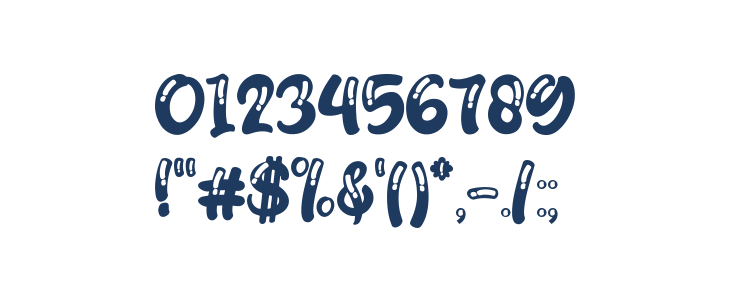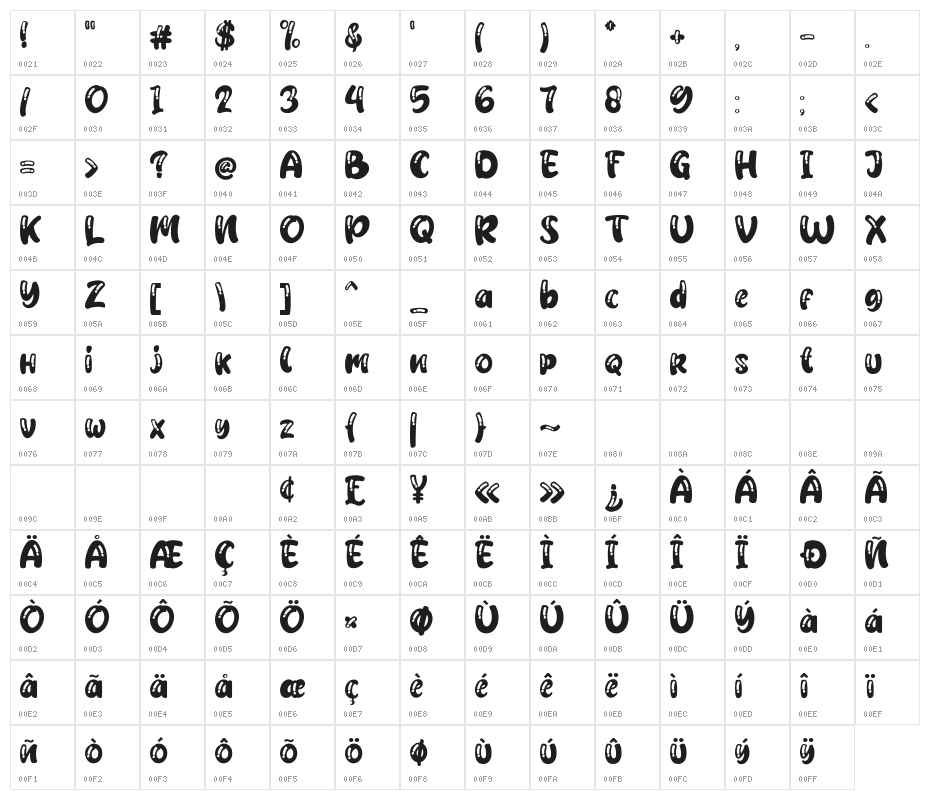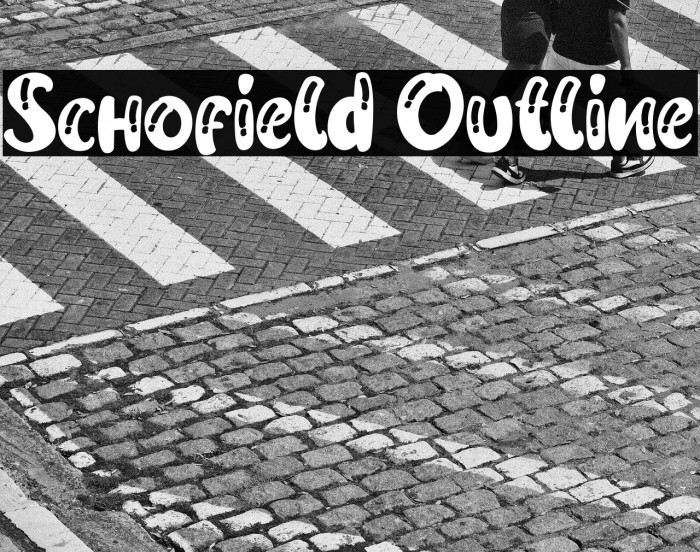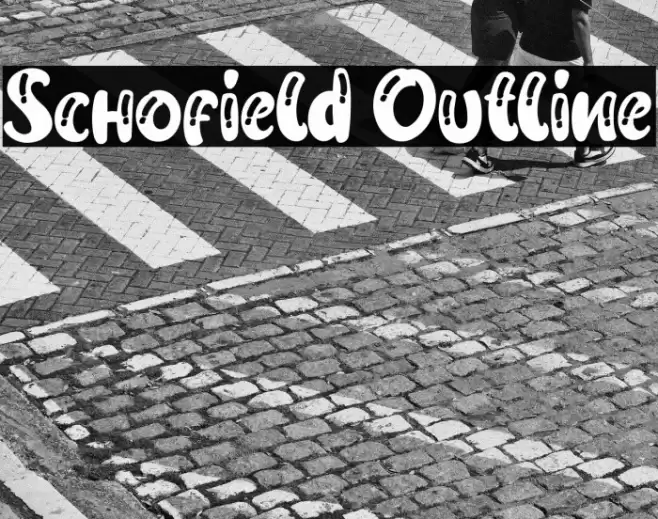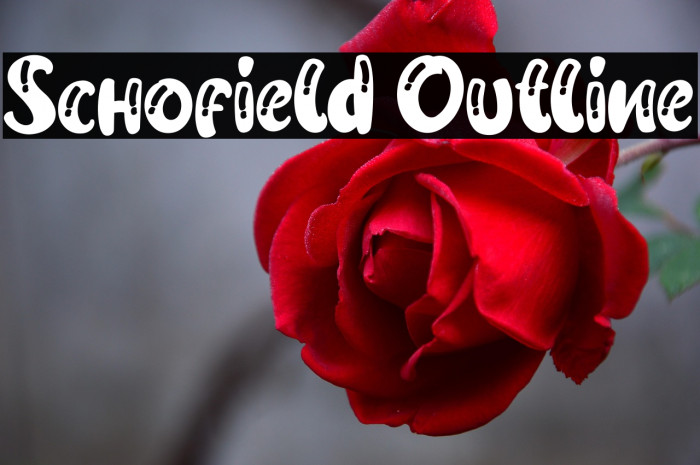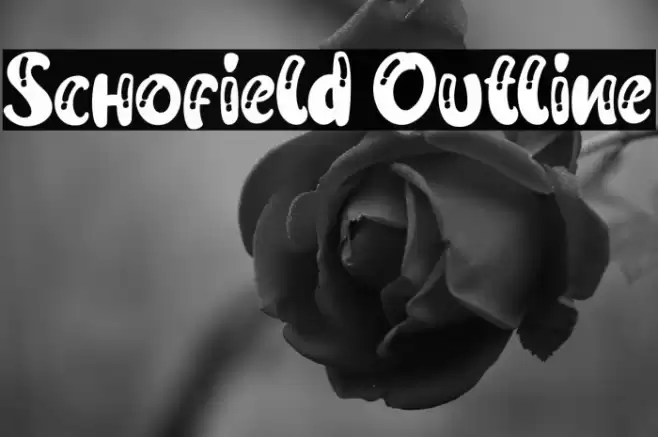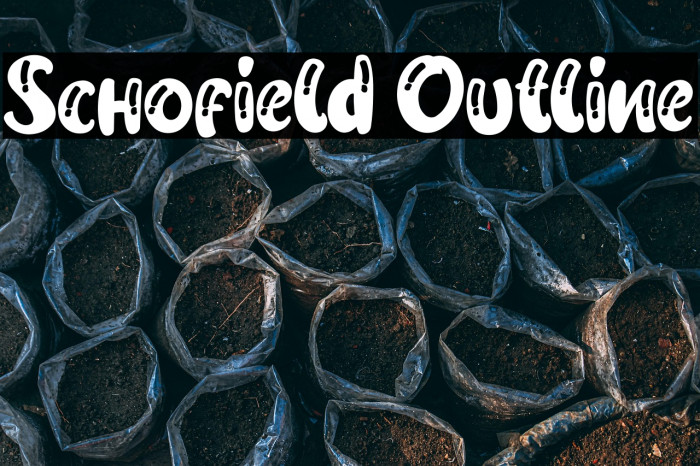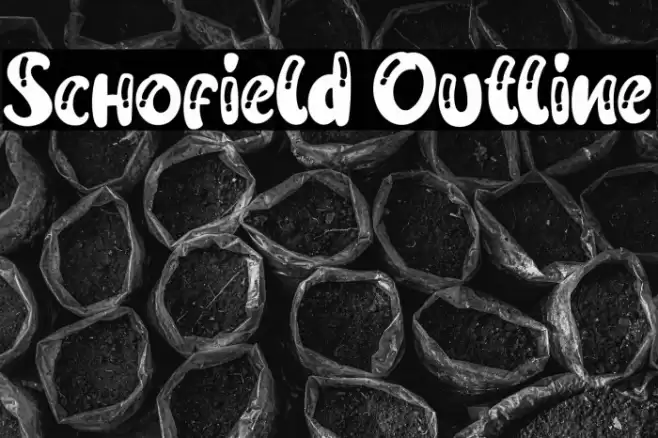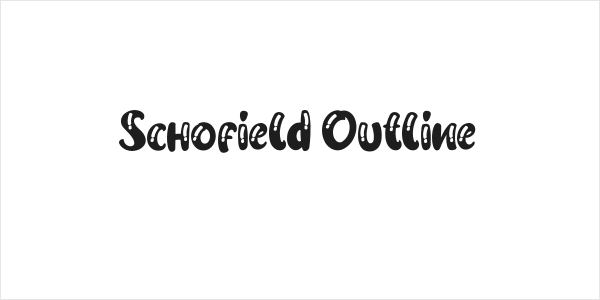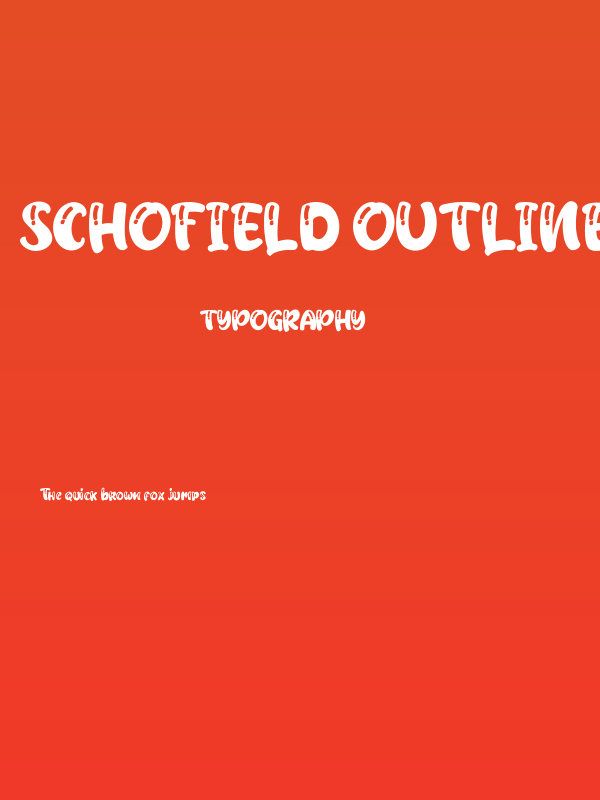
Schofield Outline Font
Schofield Outline Description
This playful and bold font features a unique outline style with a bubbly, cartoonish appearance. Each character is crafted with a thick, rounded outline that gives it a three-dimensional look. The letters are slightly irregular, adding a whimsical touch that makes the font stand out. The numbers and special characters follow the same design, ensuring consistency throughout. This font is perfect for projects that require a fun and engaging aesthetic, such as children's books, comic strips, or playful branding.
Overall StylePlayful, Cartoonish
Proposed ProjectsIdeal for children's books, comic strips, playful branding, and creative posters.